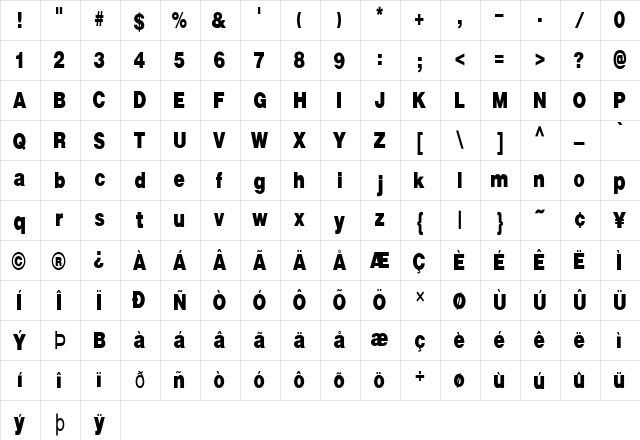
FZ BASIC 13 COND Normal Font Preview
FZ BASIC 13 COND Normal
FZ BASIC 13 COND Normal Font Details
Design Context for FZ BASIC 13 COND Typeface
FZ BASIC 13 COND is a composed and adaptable typeface that performs quietly and consistently across a wide range of design contexts. Its narrow stance lets it pack a punch even in space-constrained designs.